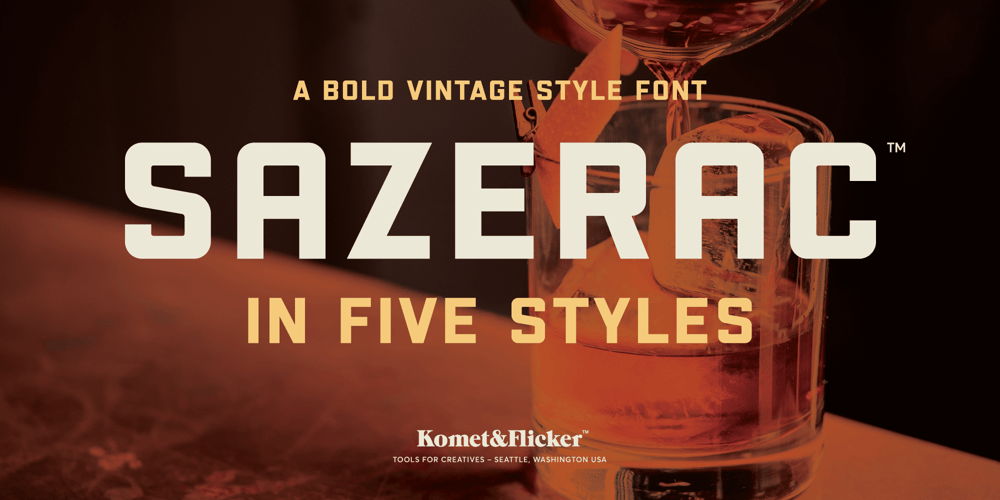
Sazerac Font Family was designed by David Phillips and published by Komet & Flicker. Sazerac contains 5 styles and family package options. SAZERAC is a vintage inspired font that exudes strength and boldness in every character.This font is perfect for designs that require a powerful and confident aesthetic, such as logos, headlines, and branding materials. With its clean lines and classic design, SAZERAC is sure to stand the test of time and remain a timeless choice for any creative project. Whether you’re creating a vintage-inspired design or simply looking for a font that commands attention, SAZERAC is sure to make a lasting impression.SAZERAC comes in five different styles: • SAZERAC Bold • SAZERAC Bold Shadow • SAZERAC Bold Outline Shadow • SAZERAC Bold Stencil No. 1 • SAZERAC Bold Stencil No. 2Each version of SAZERAC includes a set of 25 connecting word character glyphs in two styles. This font pairs well with our Germaine font for a variety of bold vintage inspired styles.THIS FONT INCLUDES • Full A-Z basic latin character set • Select European specific characters • Includes alternate characters for A, M, Q, S, and Y • Alternate © and @ symbols, an alternate ampersand (&) plus an alternate fraction set • A set of 58 custom connecting word & symbol glyphs • Numbers, punctuation, and select symbolsIn Illustrator, the extra custom glyphs can easily be accessed in the “Type → Glyphs” panel. In Photoshop they can be accessed through “Type → Panels → Glyphs Panel”.